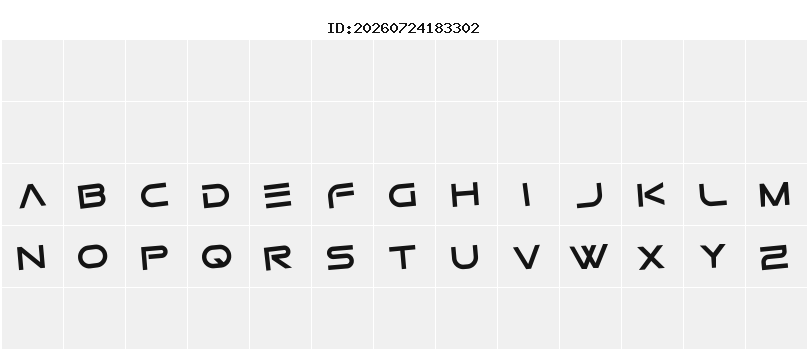
• Font Name: Gtek Nova
• Full Font Name: Gtek Nova
• Version: Version 1.00 March 23, 2013, initial release
• Designer: Carlos Matteoli
About Gtek Nova.ttf
Gtek Nova.ttf is a modern, elegant sans-serif font designed for ultimate readability and visual harmony. Perfect for branding, headlines, web design, and print materials.